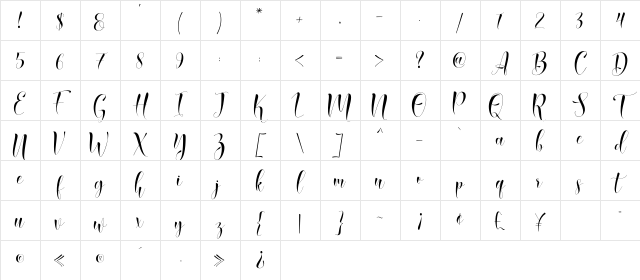
Qasmi Script Regular
Foundry: Khurasan
Designer: Khurasan
Design Context for Qasmi Script
Qasmi Script flows with the natural rhythm of handwritten lettering, making it ideal for designs that call for warmth and personal expression.
Font Pairing: Combine Qasmi Script with a simple geometric sans for maximum contrast - the tension between flowing curves and clean structure is a classic typographic pairing.
Pro Tip: Use Qasmi Script for short runs of text - names, titles, or taglines. Extended body copy in script faces tires the eye quickly.